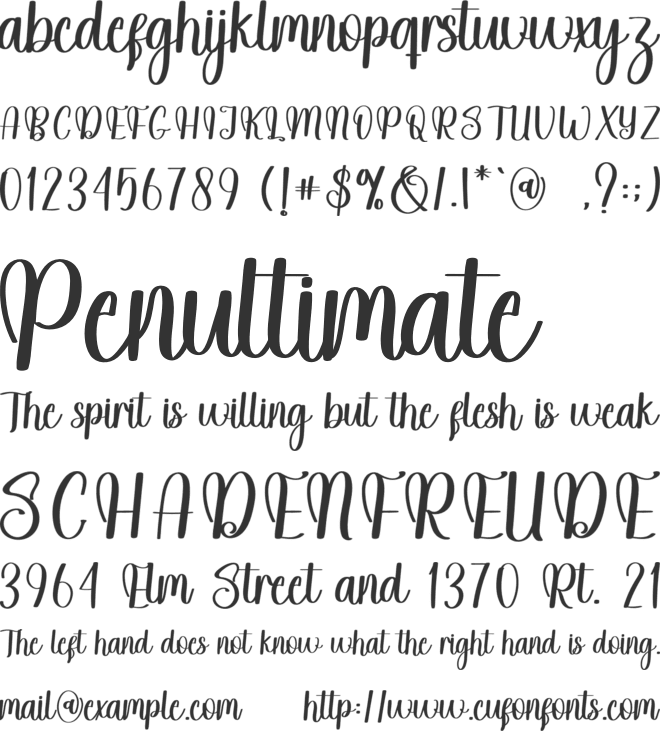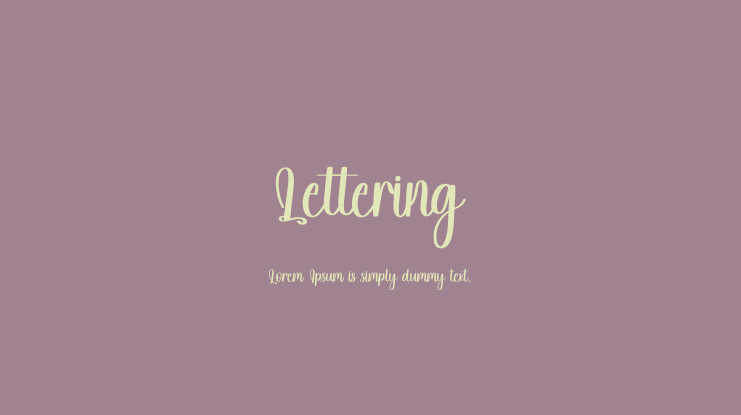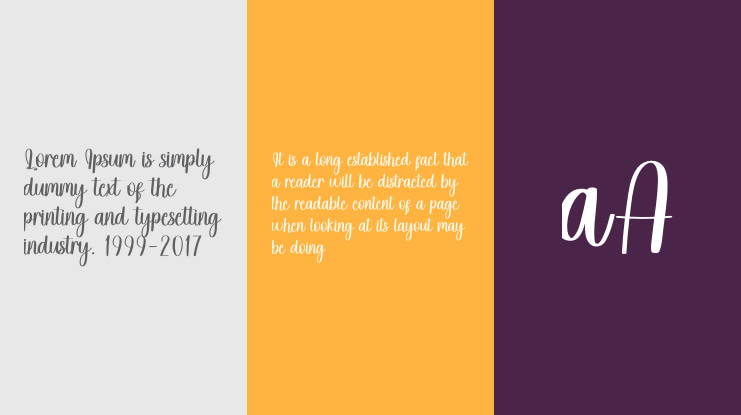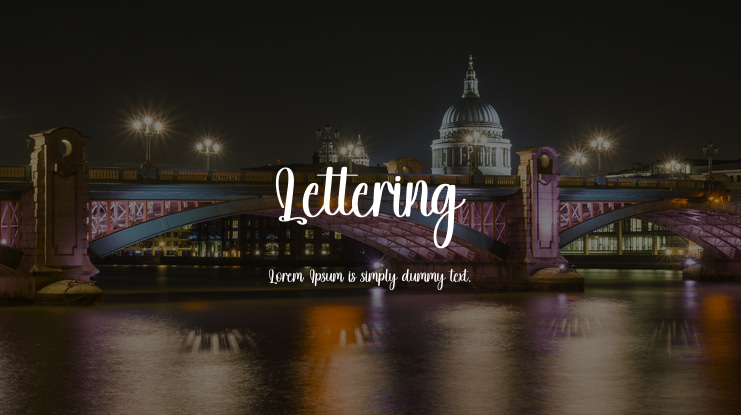
Lettering Font
This is a relaxed and beautiful paint brush handwritten font. It can be used for various purposes such as logos, wedding invitations, headings, t-shirts, letterhead, signage, labels, news, posters, badges and so much more.